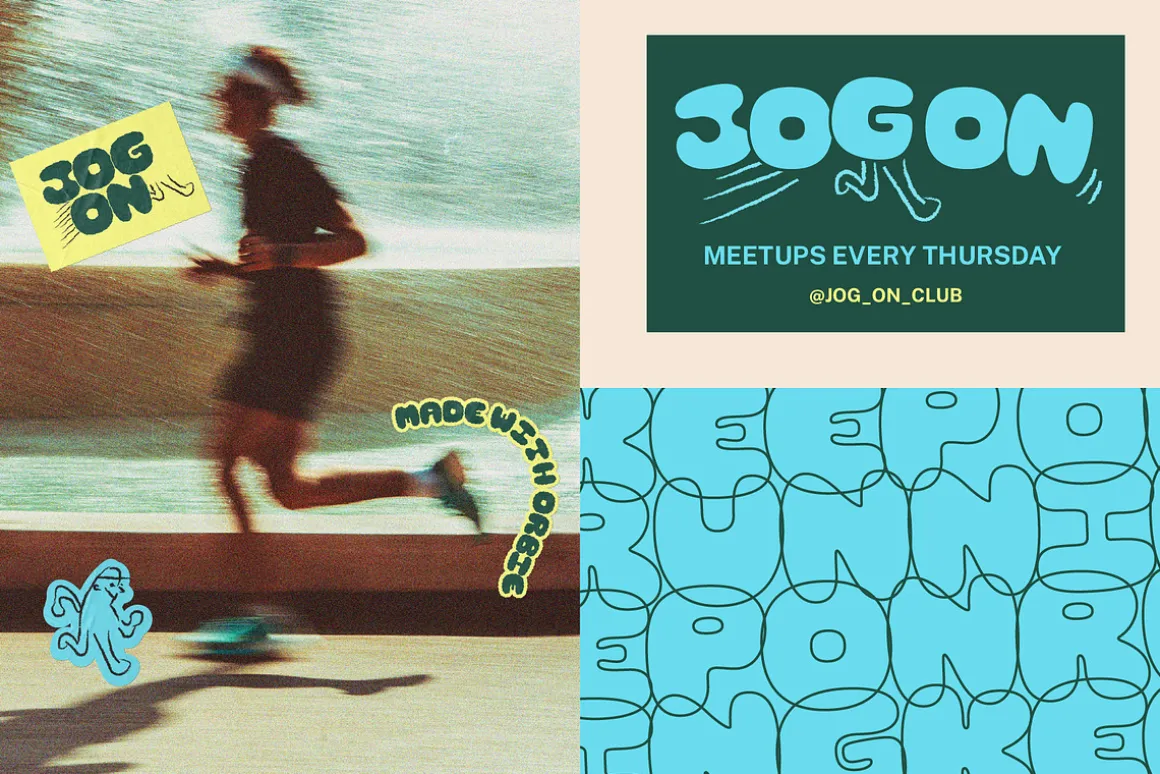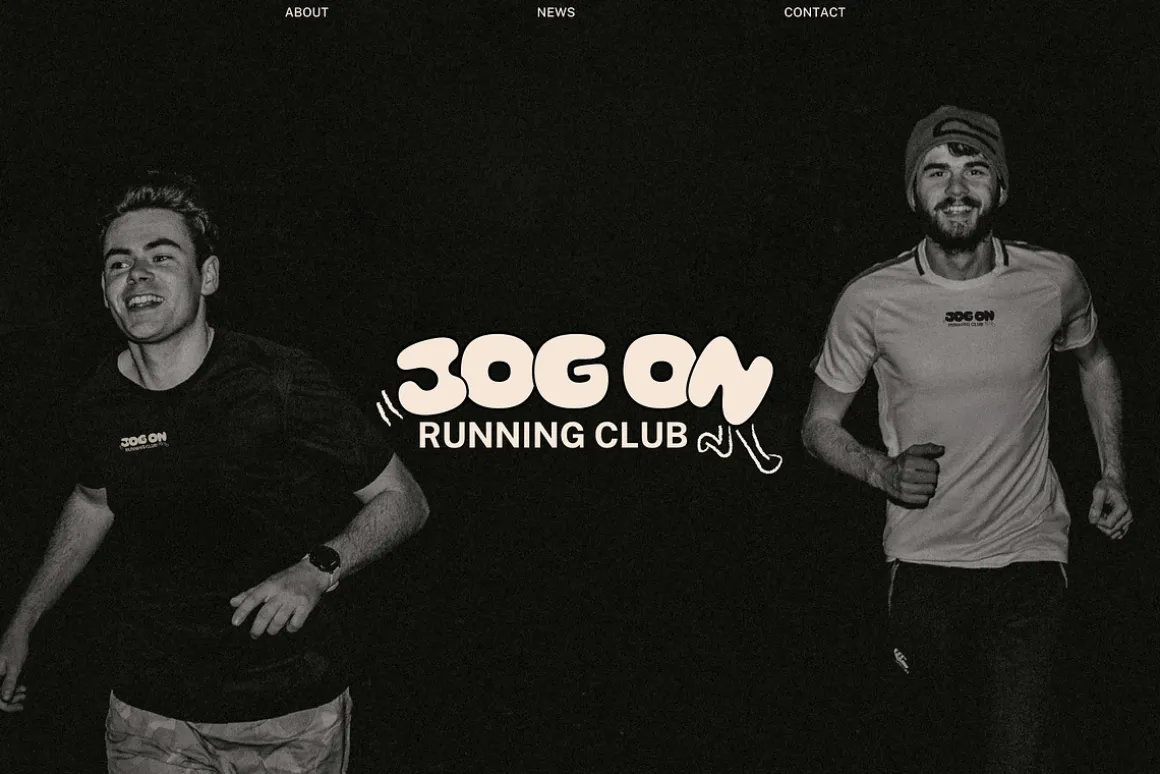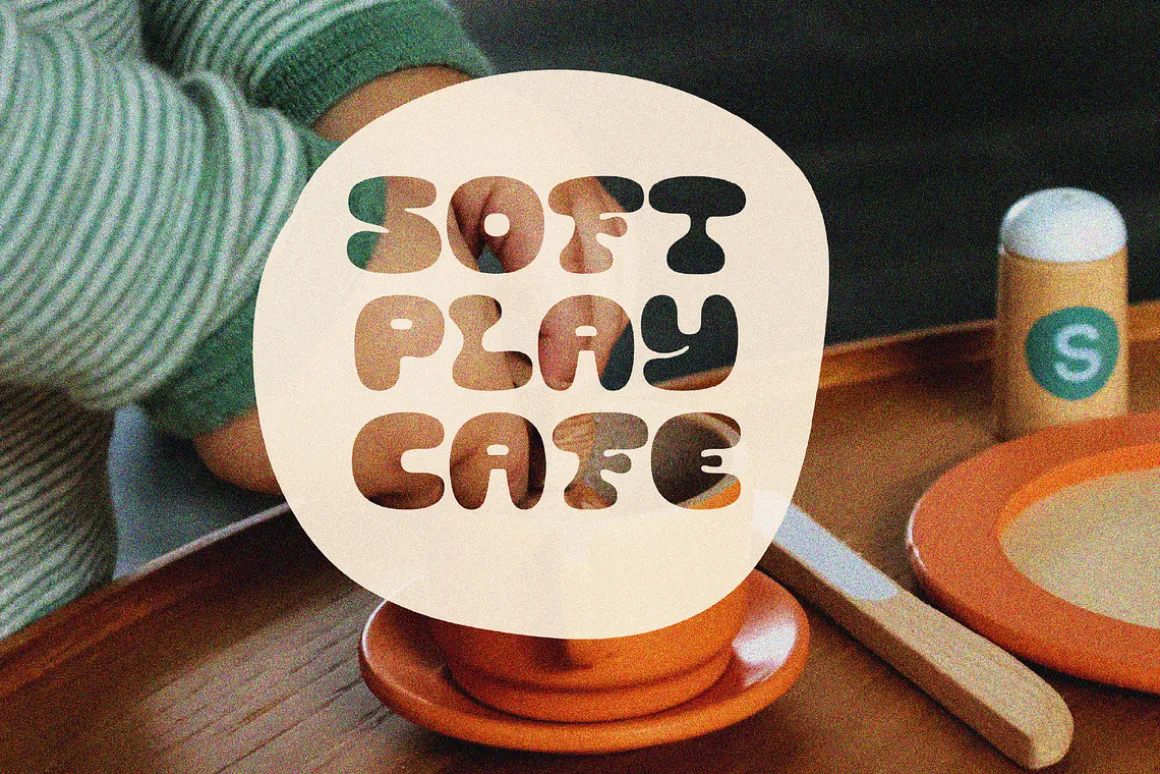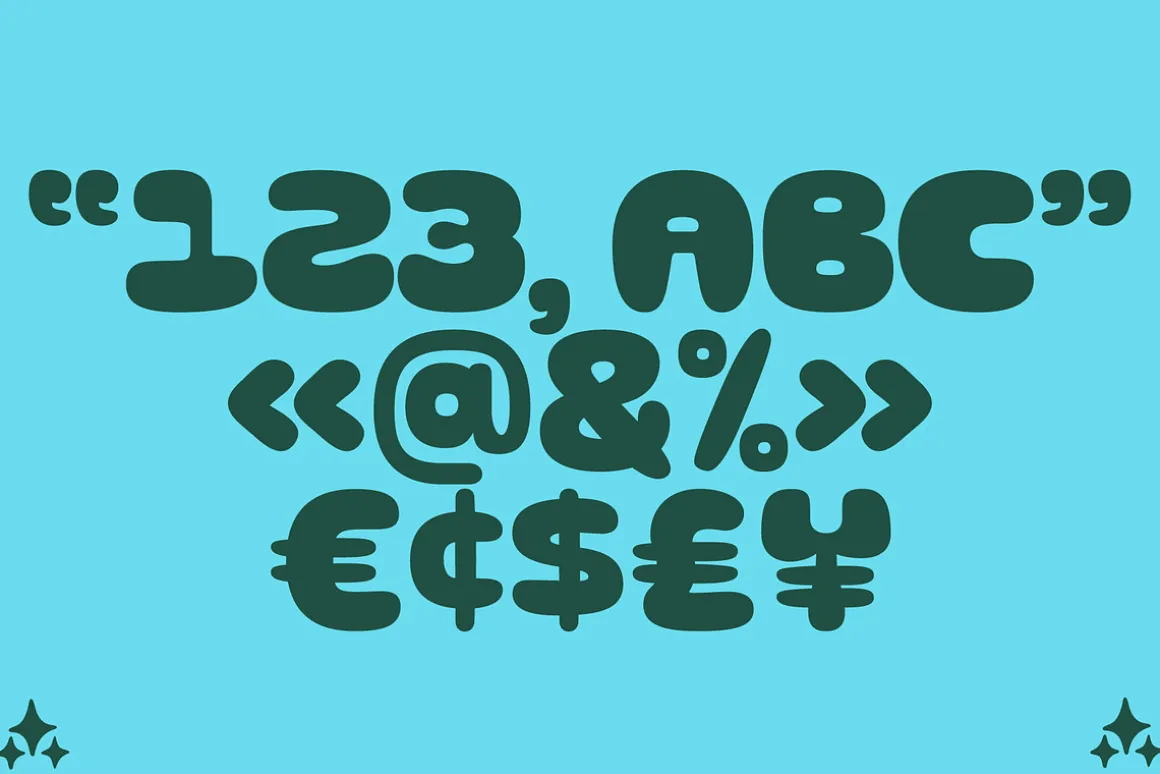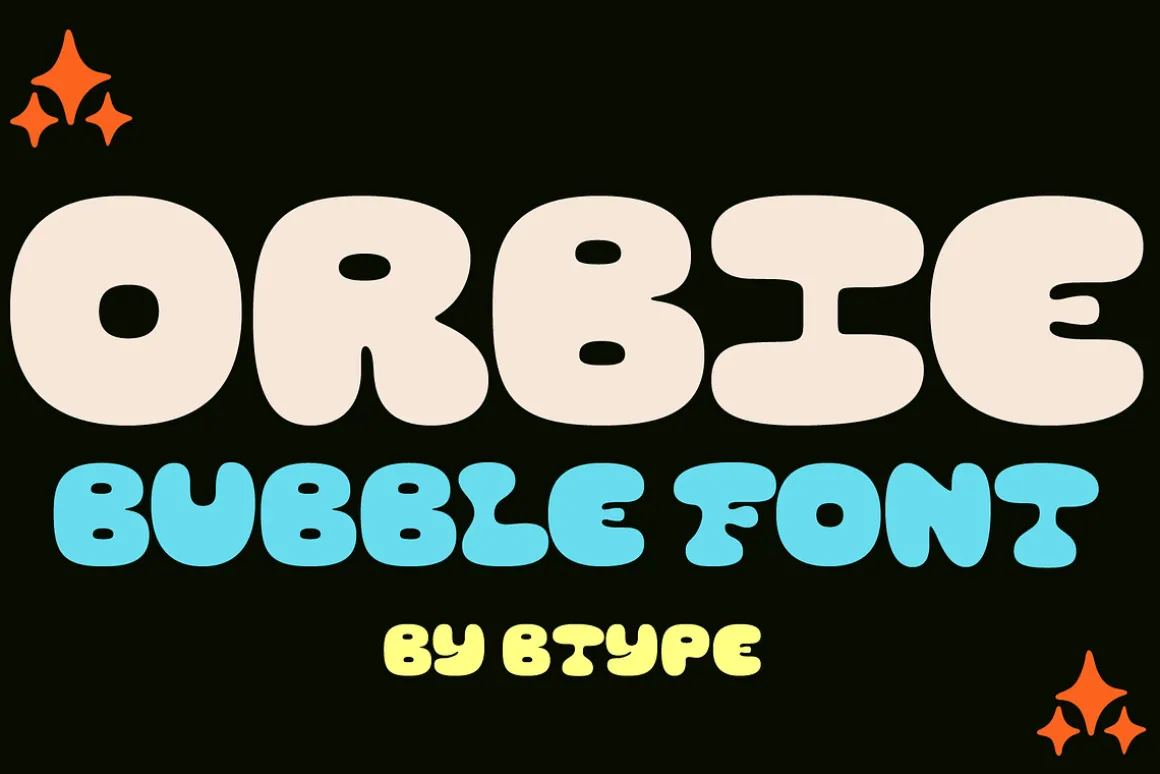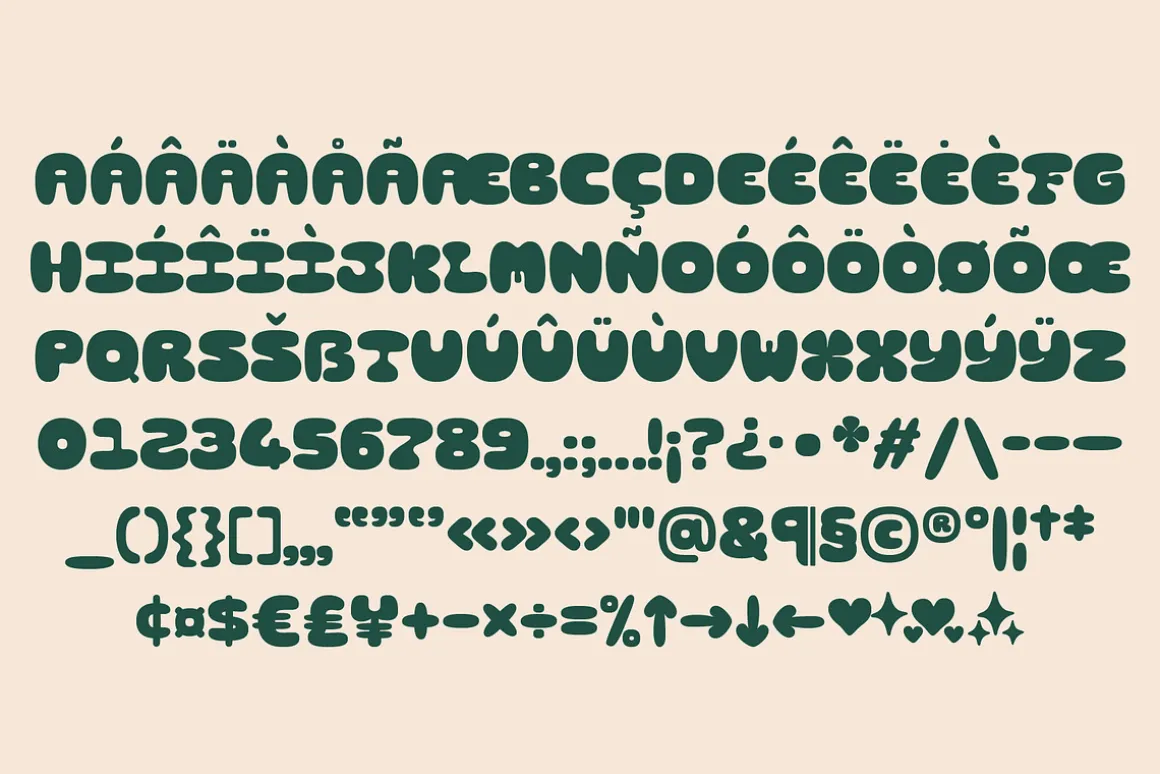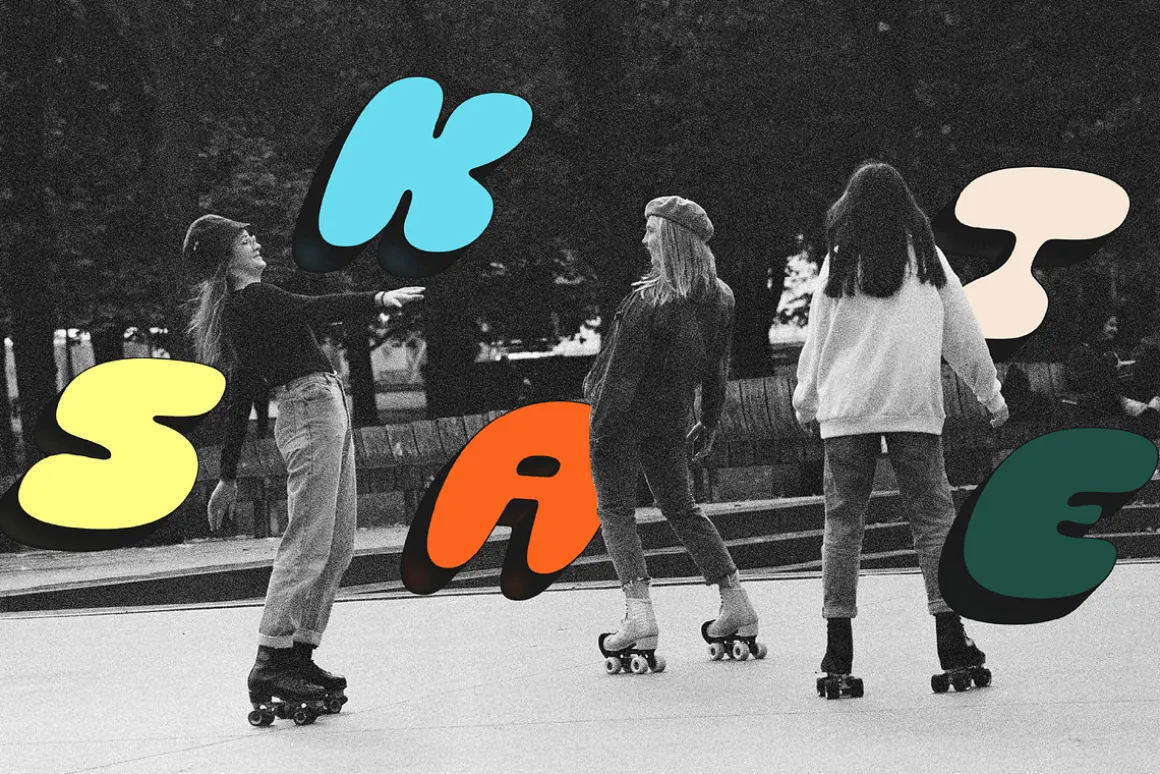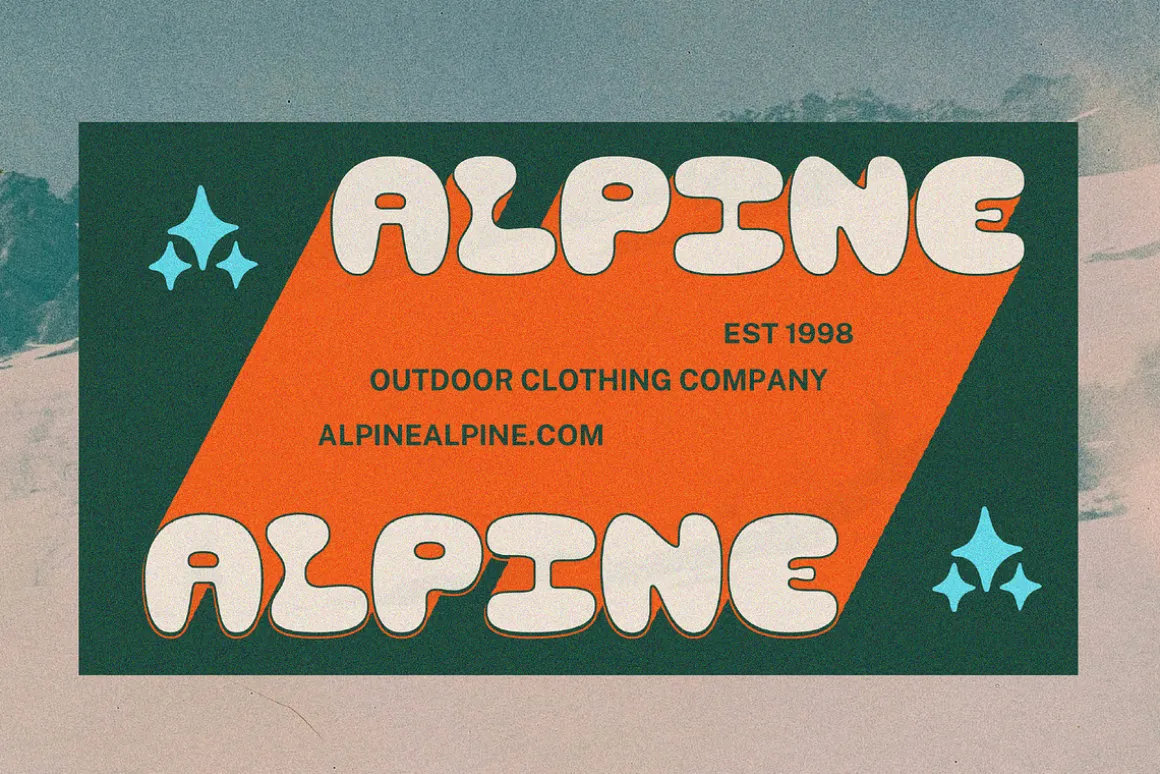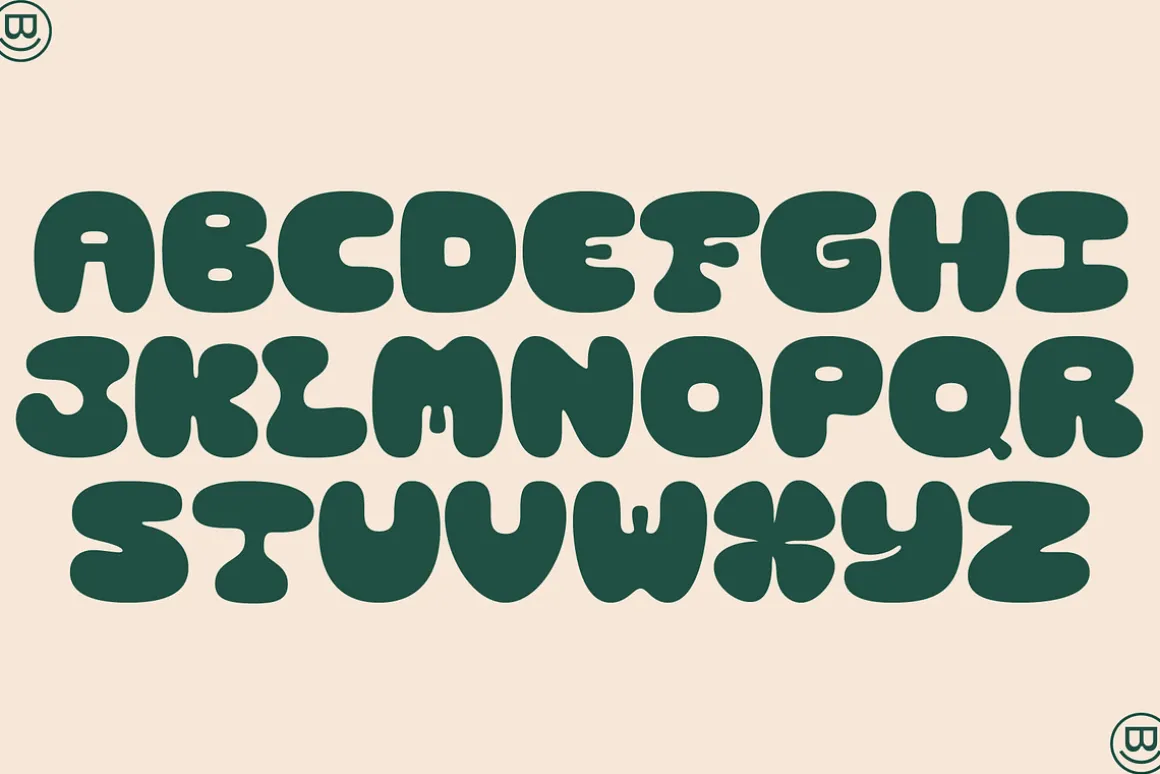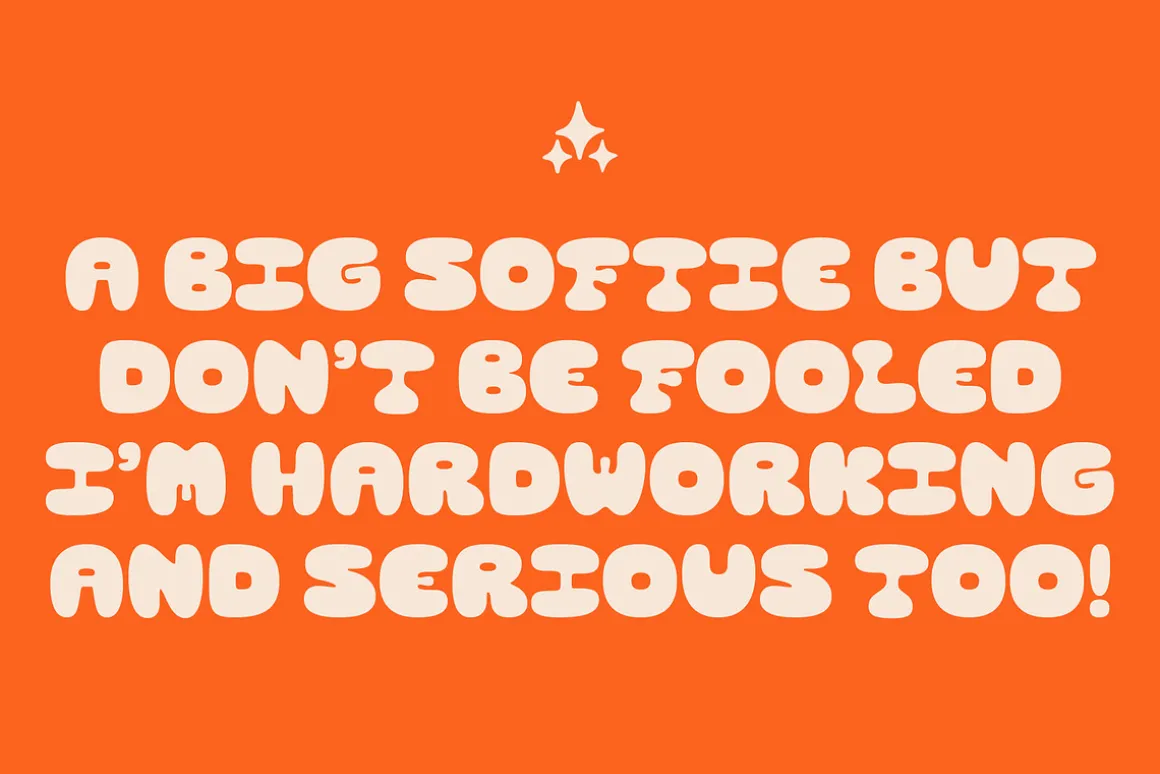
Orbie is a bubbly display font with retro energy. It blends playful charm with a clean, modern edge—perfect for adding personality to a brand! Ideal for logos, stickers, merchandise, packaging, and any project needing a bold, upbeat typeface with a nostalgic vibe.
- All-caps character set
- Numbers, punctuation and symbols
- Latin language support